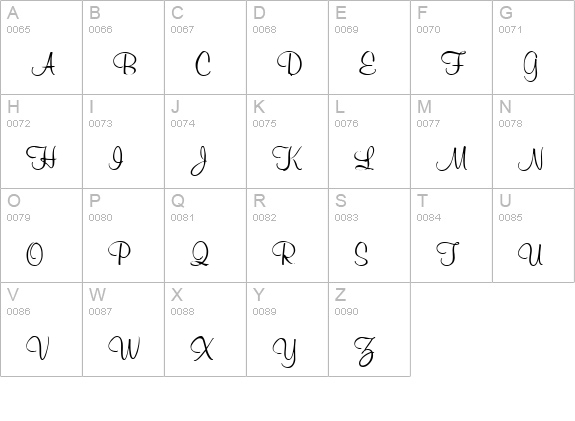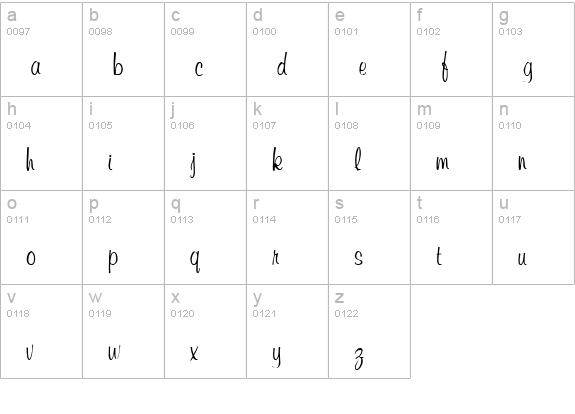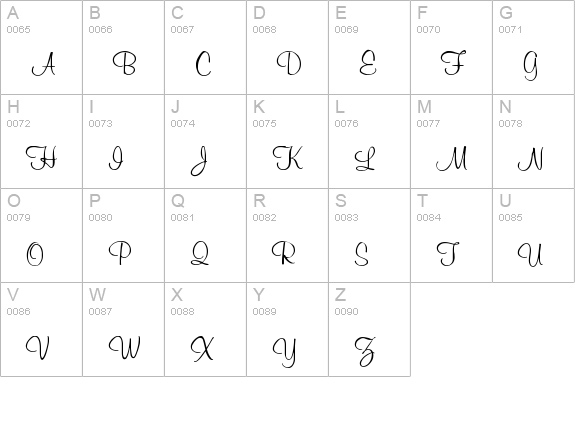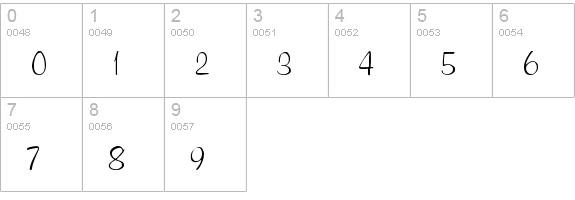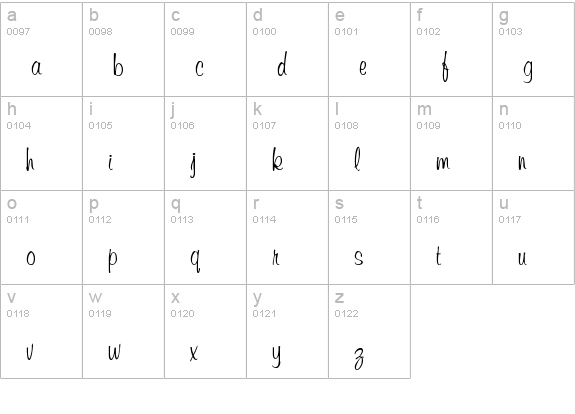
Balsam Font Details
Balsam font is a modern and elegant typeface that exudes sophistication and style. Its sleek lines and subtle curves make it perfect for a wide range of design projects, from branding to editorial layouts. The versatility of Balsam font allows it to seamlessly transition between both digital and print mediums, ensuring a consistent and polished look across all platforms. What sets Balsam font apart is not only its aesthetic appeal, but also its accessibility. This stunning typeface is available for free download at FontsMarket.com, making it easily accessible to designers and creatives looking to elevate their work with a touch of sophistication. Whether you're working on a website, a brochure, or a social media graphic, Balsam font is sure to make a lasting impression with its timeless elegance and refined charm. Download Balsam font today and see for yourself the impact it can have on your next project.